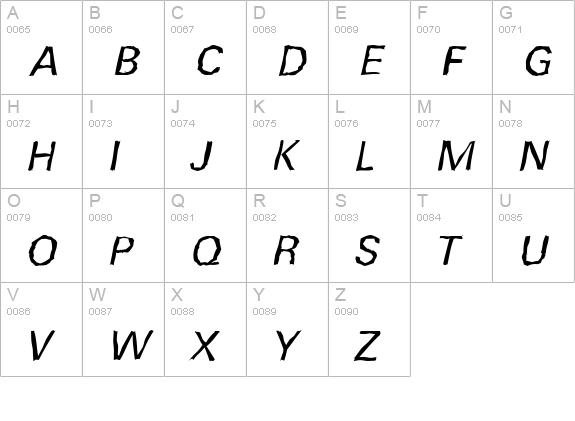
UltimateRandom-Italic is a distinctive, italic variant in the UltimateRandom typeface family \xE2\x80\x94 well suited to design and typography projects.
Introducing UltimateRandom-Italic, a sleek and modern font that exudes sophistication and elegance. With its unique italicized style, this font is perfect for adding a touch of class to any design project. Whether you're creating a stunning logo, eye-catching poster, or stylish website, UltimateRandom-Italic is sure to make a statement. Best of all, UltimateRandom-Italic is completely free to download at FontsMarket.com. That's right, you can elevate your designs with this premium font without spending a dime. Don't miss out on the opportunity to enhance your creations with the beauty and versatility of UltimateRandom-Italic. Download it today and take your designs to the next level!